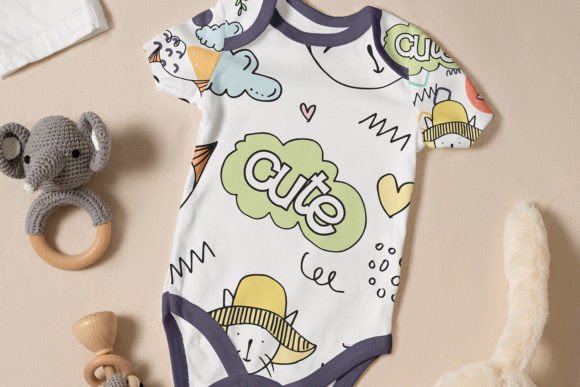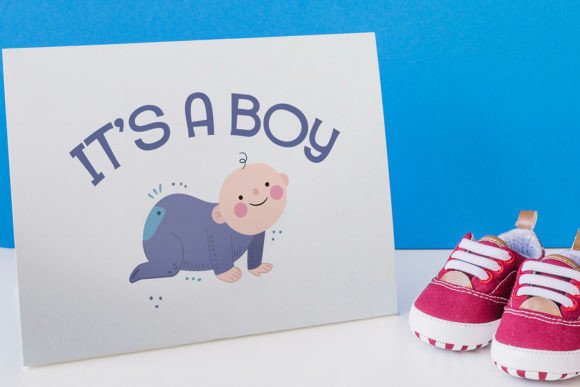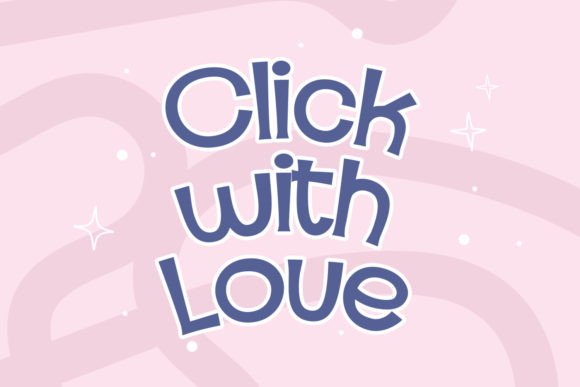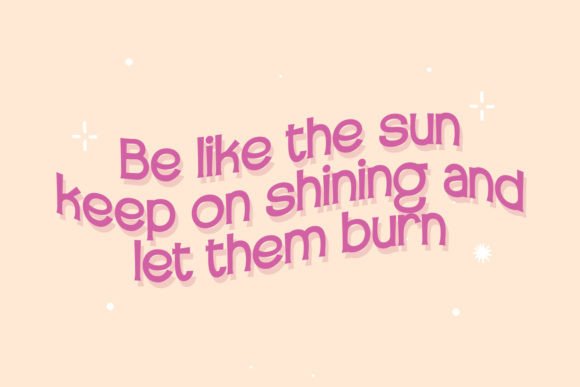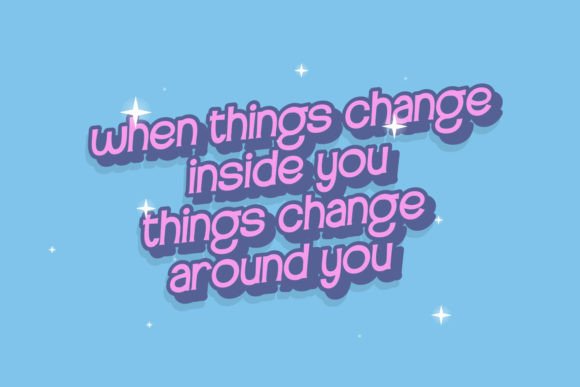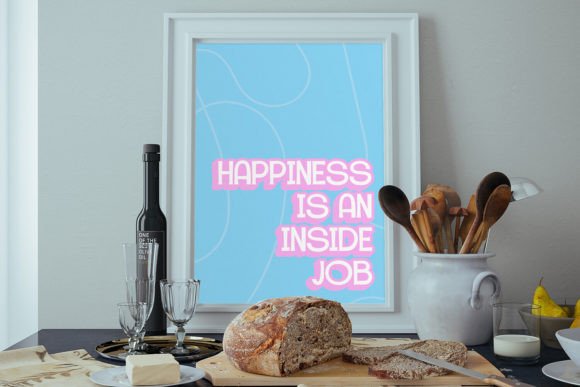
Introducing Digicam Font: A Charming Serif Display Font
Are you looking for a font that can add a touch of warmth and friendliness to your design project? Look no further than Digicam Font, a charming serif display font that exudes a playful and modern vibe. With its soft curves and gentle demeanor, Digicam is the perfect choice for designers and crafters who want to create a unique and eye-catching design.
The Characteristics of Digicam Font
Digicam Font is crafted with rounded shapes, creating a soft and inviting appearance that is sure to capture the attention of your audience. The weight of the font is moderate, striking a balance between readability and personality. This makes it perfect for use in a variety of design projects, from headings and titles to logos and branding materials.
One of the standout features of Digicam Font is its subtle contrast of letters. This adds to the font’s overall charm, creating a sense of depth and dimension that is sure to enhance your design. Whether you’re creating a website, brochure, or social media graphic, Digicam Font is the perfect choice.
What Sets Digicam Font Apart
So, what sets Digicam Font apart from other fonts on the market? The answer is its playful style. Unlike other serif fonts that can come across as traditional or boring, Digicam Font infuses a sense of fun and creativity into your design. This makes it perfect for designers and crafters who want to create a unique and eye-catching design that stands out from the crowd.
Whether you’re creating a design for a children’s brand, a lifestyle blog, or a creative agency, Digicam Font is the perfect choice. Its playful style and charming appearance make it sure to delight your audience and leave a lasting impression.
Using Digicam Font in Your Design Projects
Digicam Font is a versatile font that can be used in a variety of design projects. Here are just a few ideas to get you started:
- Headings and Titles: Use Digicam Font to create eye-catching headings and titles that grab the attention of your audience.
- Logos and Branding: Create a unique and memorable logo for your brand using Digicam Font.
- Websites: Use Digicam Font to add a touch of warmth and friendliness to your website.
- Social Media Graphics: Create eye-catching social media graphics using Digicam Font.
- Brochures and Flyers: Use Digicam Font to create eye-catching brochures and flyers that stand out from the crowd.
Tips for Getting the Most Out of Digicam Font
Here are a few tips for getting the most out of Digicam Font:
- Experiment with Different Sizes: Digicam Font looks great in a variety of sizes, from large headings to smaller body text.
- Pair it with Other Fonts: Digicam Font pairs well with a variety of other fonts, including sans-serif fonts and script fonts.
- Use it in Combination with Images: Digicam Font looks great in combination with images, especially those with a playful or whimsical theme.
In conclusion, Digicam Font is a charming serif display font that is sure to add a touch of warmth and friendliness to any design project. With its soft curves, gentle demeanor, and playful style, Digicam Font is the perfect choice for designers and crafters who want to create a unique and eye-catching design. Whether you’re creating a website, brochure, or social media graphic, Digicam Font is sure to delight your audience and leave a lasting impression.